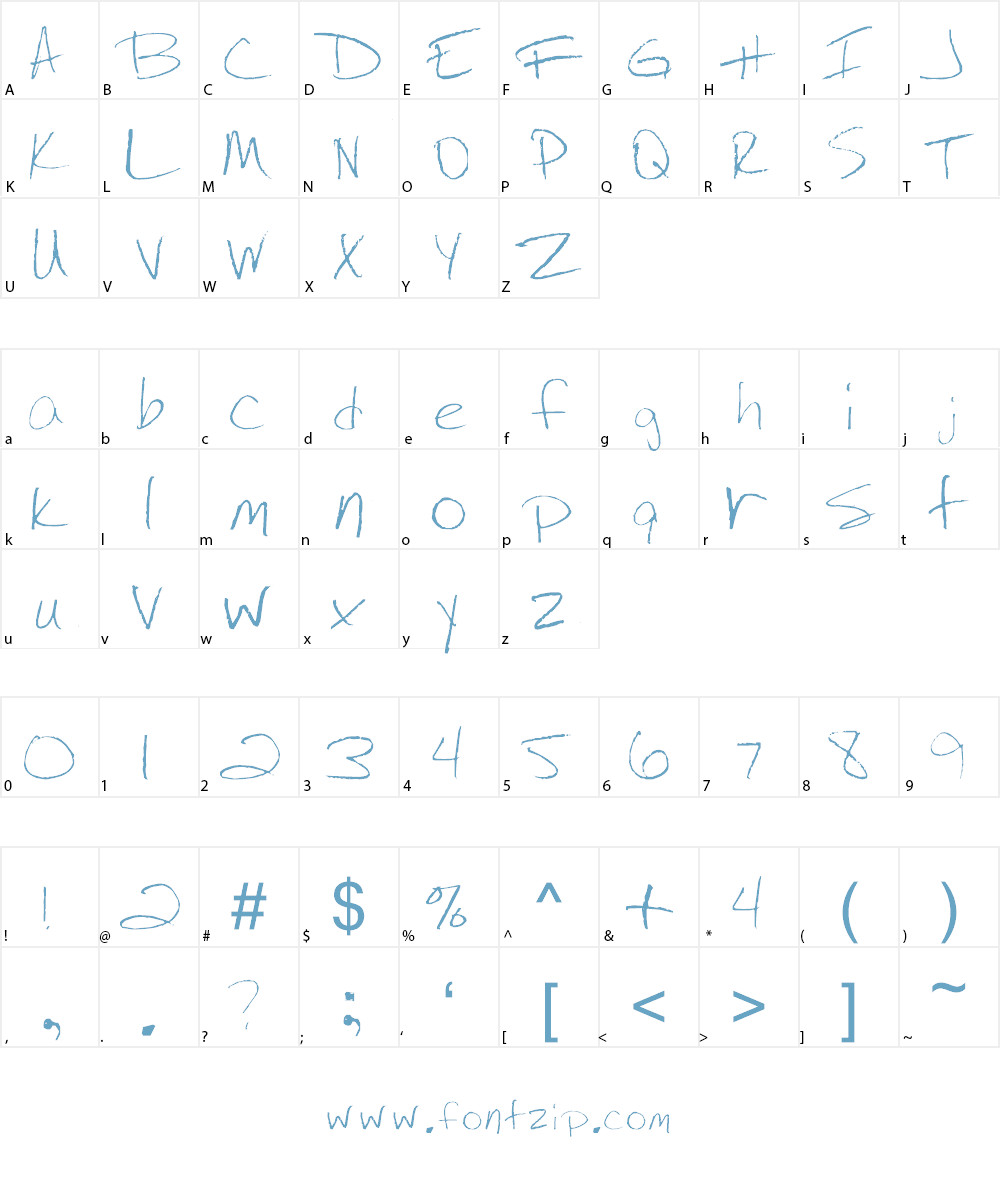
Not that I expect anyone to care, but here's an example of my handwriting. It varies, depending on how much sleep I've had, what the weather's like, and whether I'm in a rush or not. I suppose it's a fontmaking thing: one of the first things most fontographers do is make a font based on their handwriting.